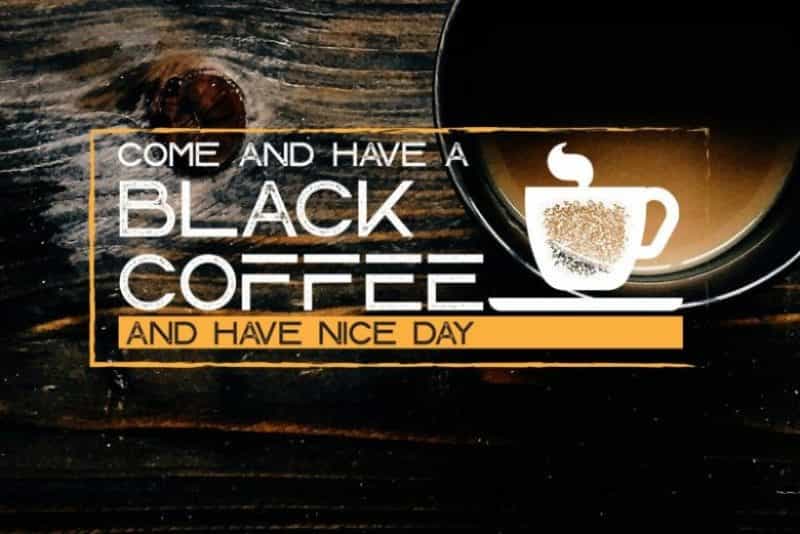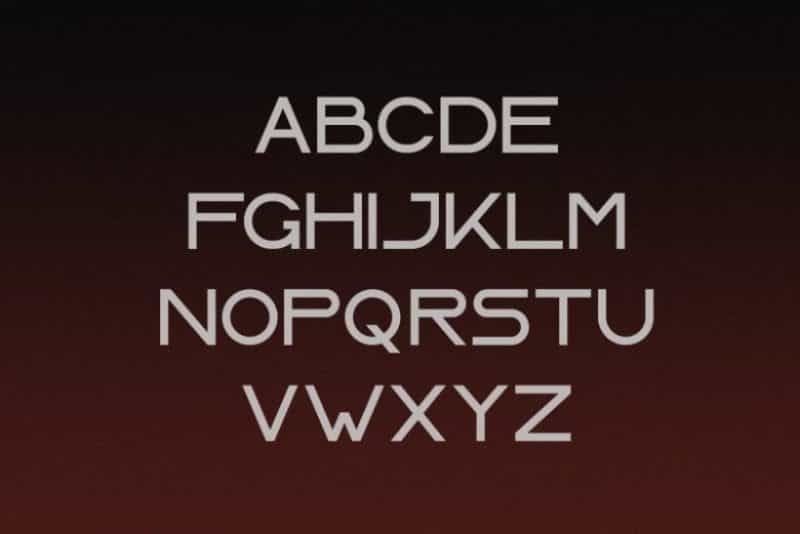
Laser fonts was specifically created with san serif type that has the appearance of being simple, contemporary and very classy. This font can be well applied in name card, poster, logo, magazine, cover, banner, t-shirt and headers or even large-scale pieces of artwork. The Laser has 3 variants namely: They are the regular, outliner and stamp style.